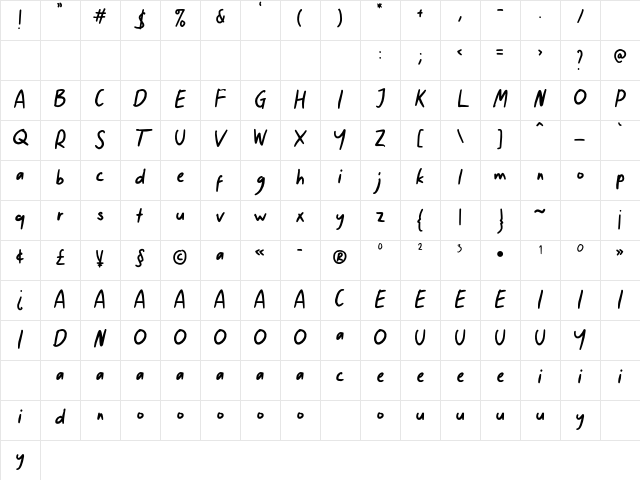
Tentang Nanti Demo Demo Free Font
Tentang Nanti Demo Demo
Style: Demo
Foundry: Gartype Studio
Designer: Gumilang Anggara Ruslan
Design Context for Tentang Nanti Demo
Tentang Nanti Demo is a composed and adaptable typeface that performs quietly and consistently across a wide range of design contexts.